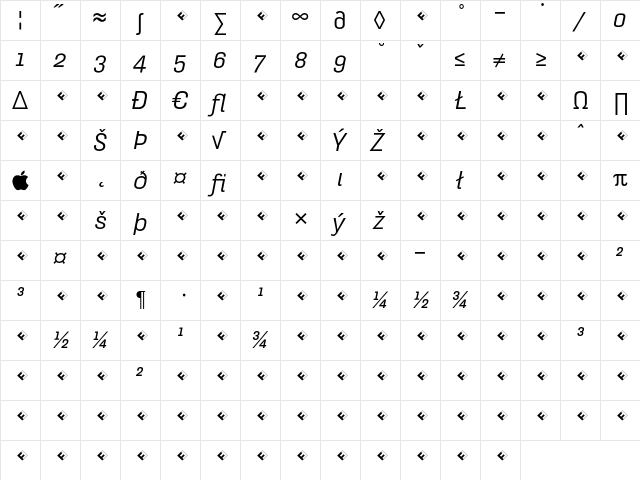
HydraText-RegularItalicExp Regular
Design Context for HydraText-RegularItalicExp Typeface
HydraText-RegularItalicExp takes a measured approach to typography — its balanced proportions and neutral character make it a reliable workhorse for both digital and print work. The dynamic lean of this cut emphasises speed and emphasis in any layout.
Pro Tip: Try HydraText-RegularItalicExp for annotation and caption copy alongside an upright companion — the contrast in angle creates a dynamic but ordered typographic system.